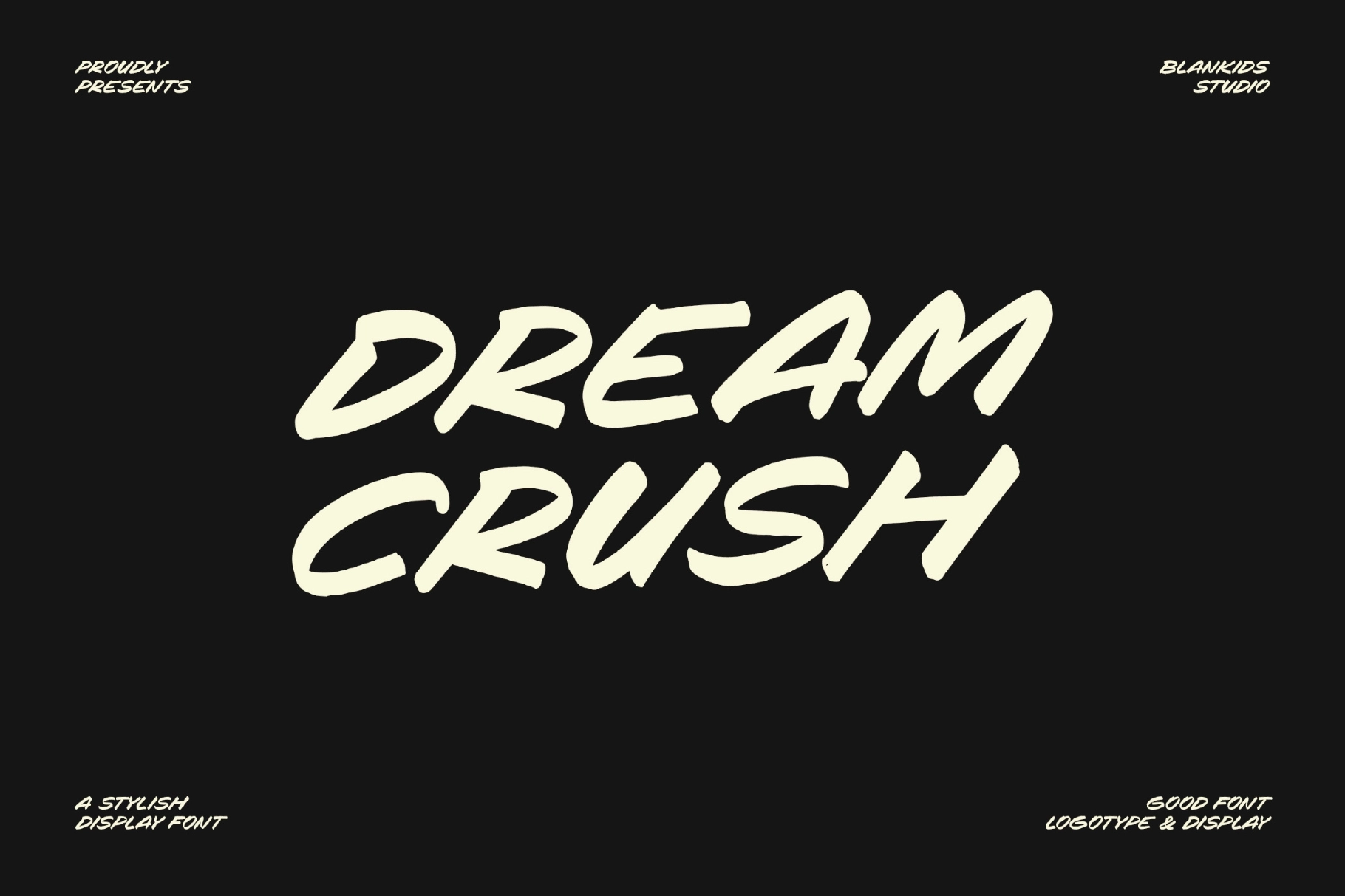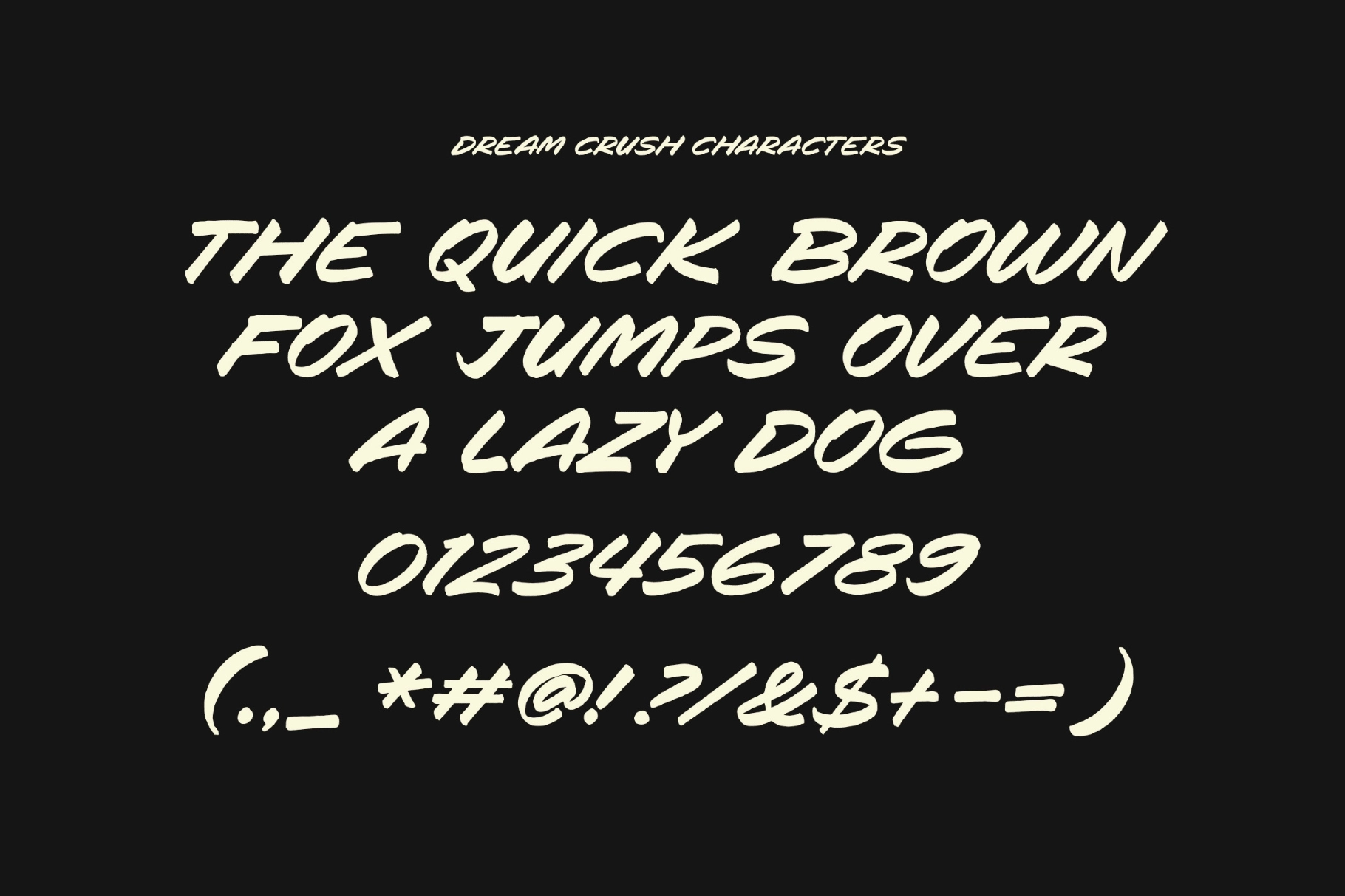
Dream Crush – Bold Urban Brush Display Font
Dream Crush
Dream Crush swings through marker-style brush strokes built for city energy, landing as a bold brush display font with thick tapered lines and a loose handwritten swagger. Every letter carries a visible stroke direction, as if it got thrown down fast with a wide brush tip, and the connecting curves keep a raw handmade edge instead of a slick vector polish.
It holds up big on a poster and just as loud squeezed into a small badge lockup. Use it for streetwear logos, gig posters, sports merch, and bold social headlines.